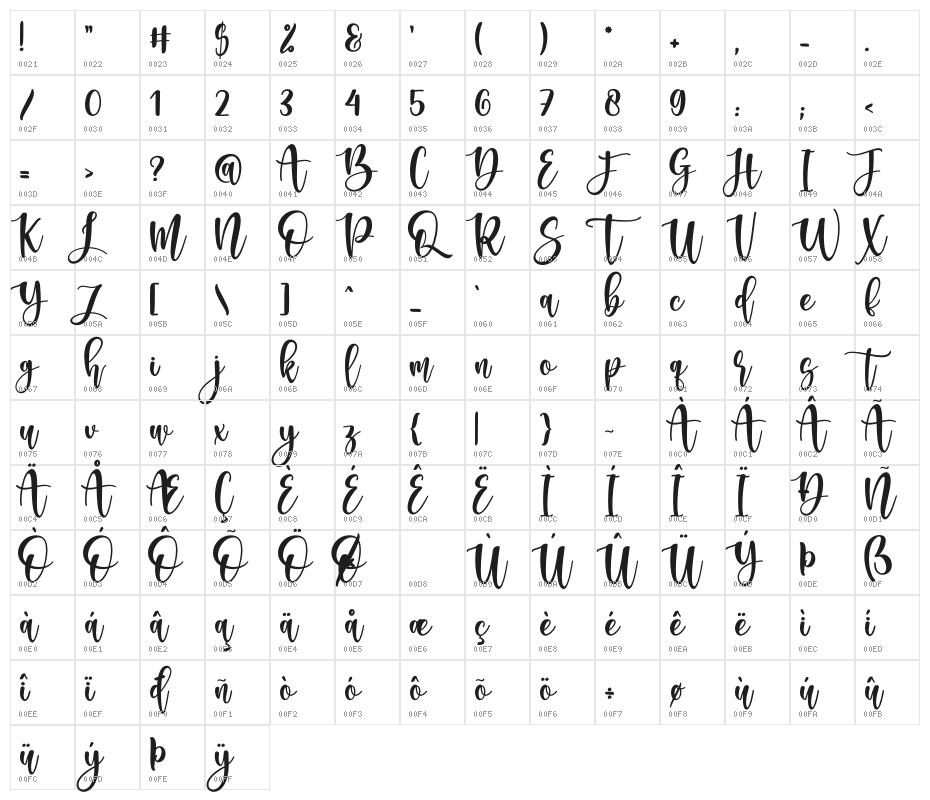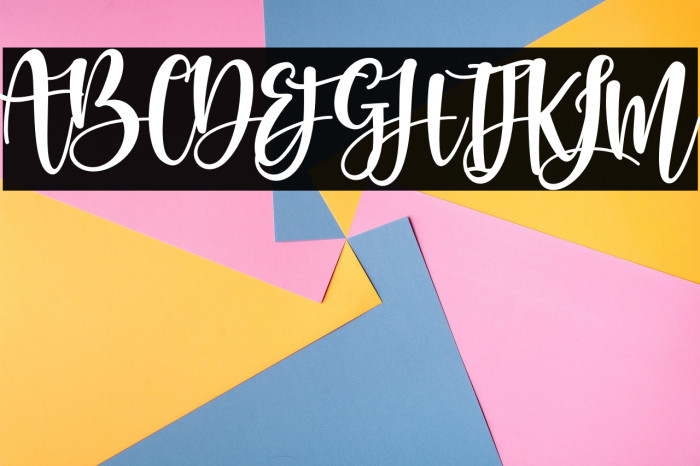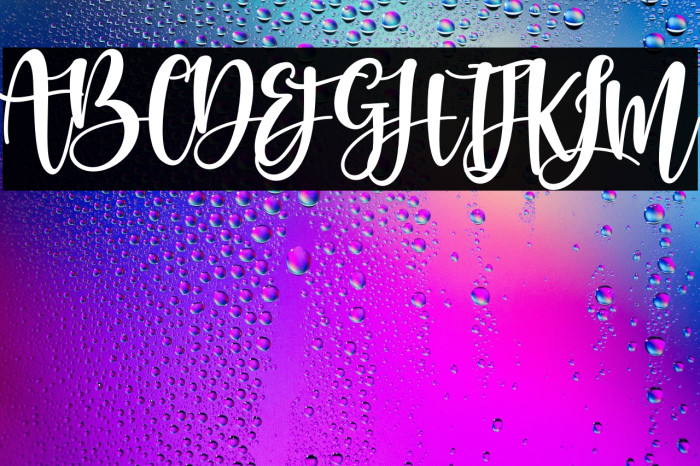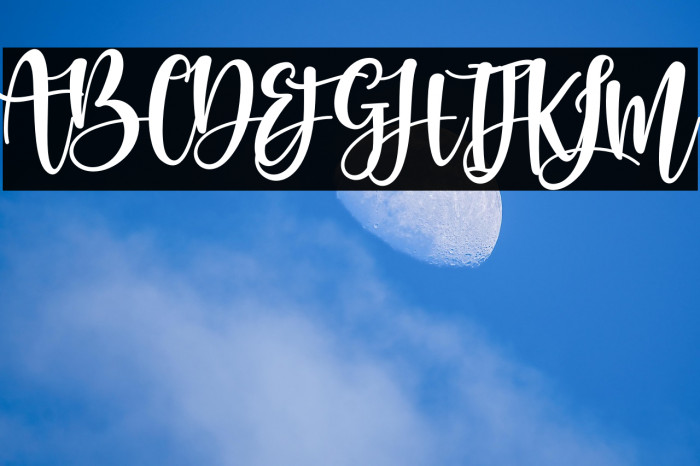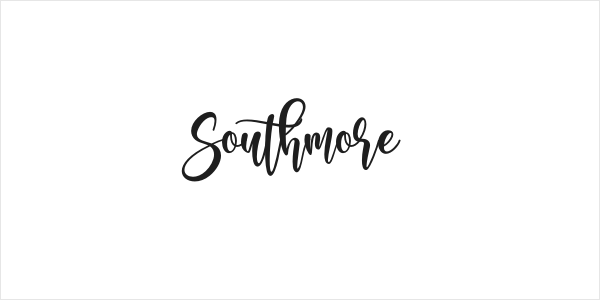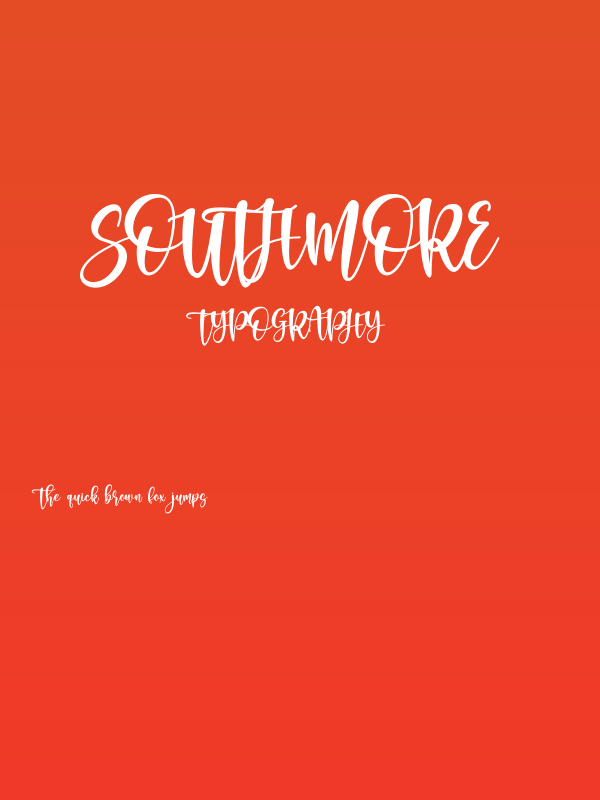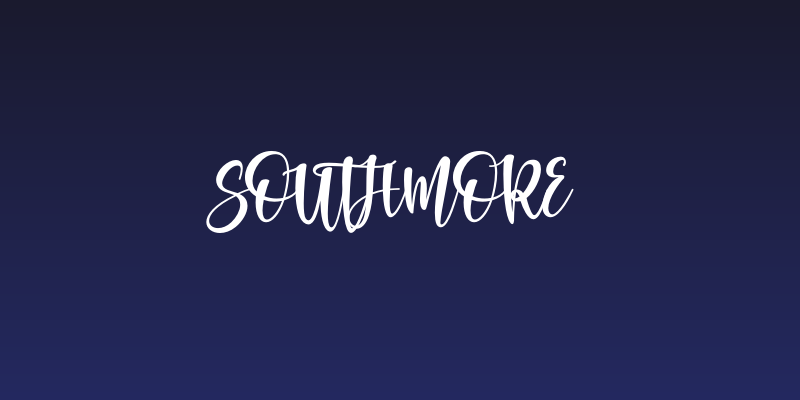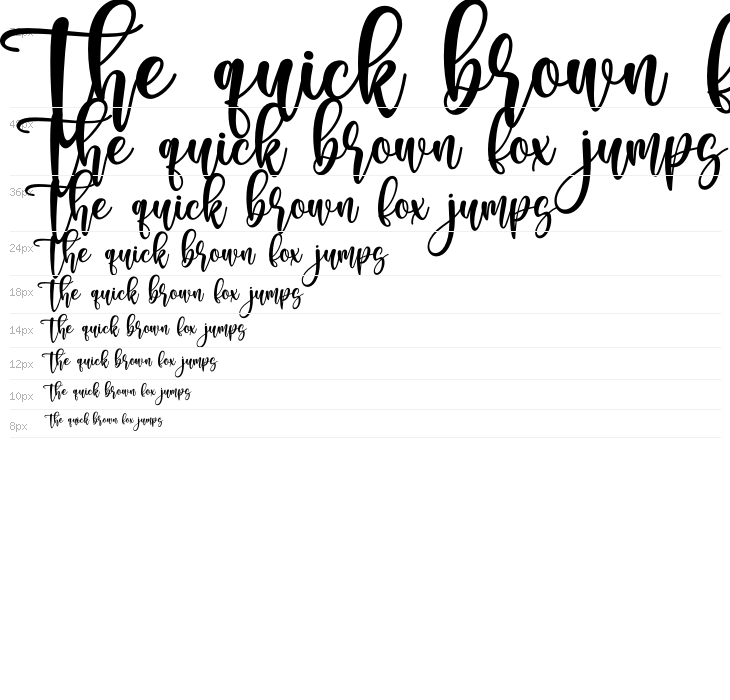
Southmore Font
Southmore Description
This font features an elegant and flowing script style, characterized by its sweeping curves and intricate loops. The uppercase letters are bold and expressive, with a distinct flair that adds a touch of sophistication. The lowercase letters maintain a consistent fluidity, enhancing readability while preserving the artistic nature of the script. Numbers and special characters are designed with the same attention to detail, ensuring a cohesive look across all elements. The overall appearance is both modern and timeless, making it suitable for a variety of design applications.
| Proposed Projects | Ideal for wedding invitations, branding, logos, and elegant stationery. |